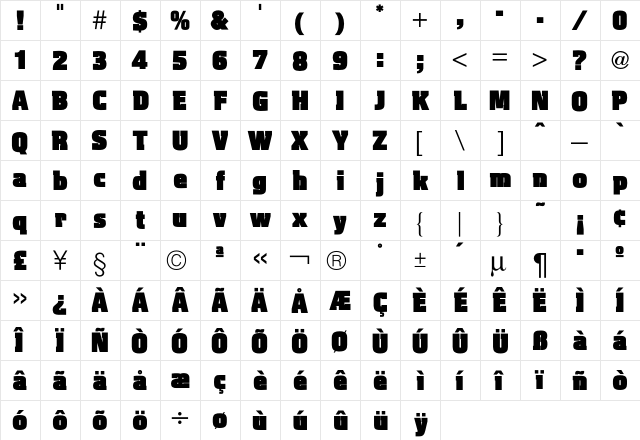
Aquarius Ten Font Preview
Aquarius Ten
Aquarius Ten Font Details
Design Context for Aquarius Typeface
Aquarius is a composed and adaptable typeface that performs quietly and consistently across a wide range of design contexts.